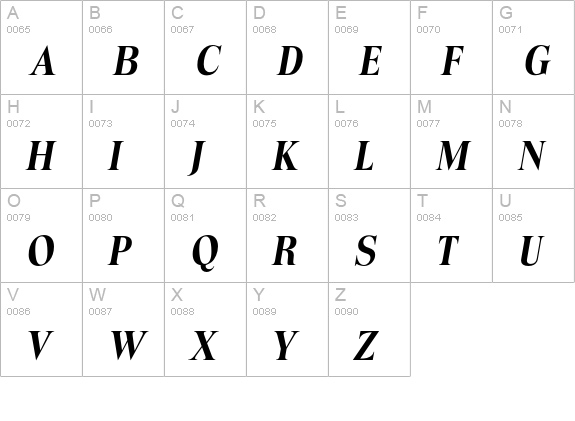
Toledo-DemiBoldIta Font Details
Toledo-DemiBoldIta is a stunning font that exudes elegance and sophistication. Its bold and italicized design adds a touch of modernity, making it perfect for a wide range of design projects. Whether you're creating eye-catching logos, captivating headlines, or stylish invitations, this font will surely make a lasting impression. With its balanced letterforms and unique character shapes, Toledo-DemiBoldIta stands out from the crowd. Its clean lines and subtle curves give it a timeless appeal, making it suitable for both contemporary and classical designs. The font's demi-bold weight adds a touch of strength and confidence, making your text pop off the page. One of the best things about Toledo-DemiBoldIta is that it is available for free! You can easily download it at FontsMarket.com, a trusted source for high-quality fonts. This means you can enhance your designs without breaking the bank. Whether you're a professional designer or a casual enthusiast, this font is a must-have in your collection. So why wait? Elevate your designs with Toledo-DemiBoldIta today! Download it for free at FontsMarket.com and let your creativity flow.